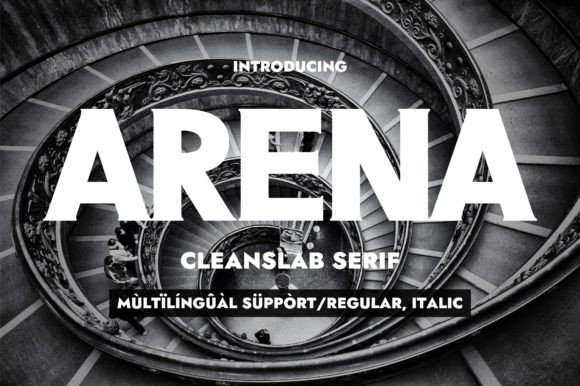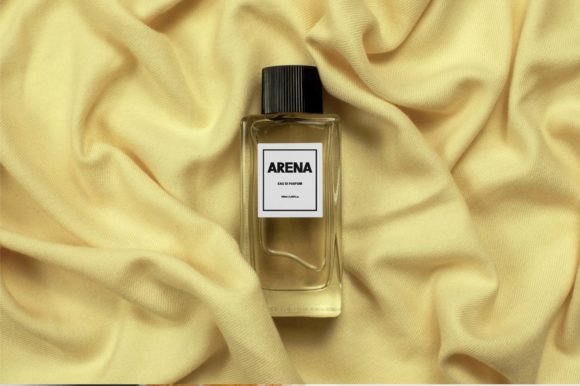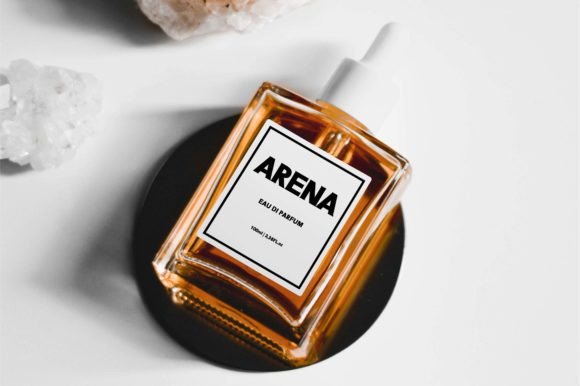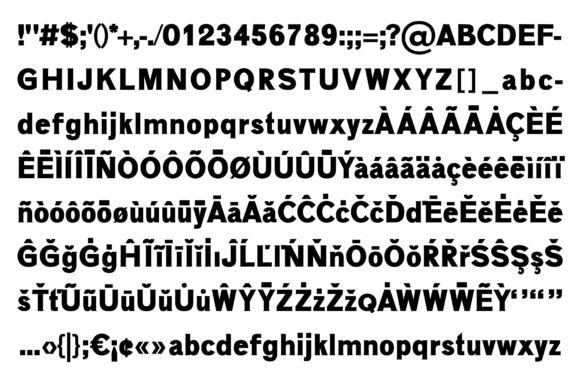
Arena
Arena: A Bold and Elegant Slab Serif Font
Arena is a bold and elegant slab serif font. Moreover, its incredible versatility makes it suitable for a wide range of creative ideas. This typeface successfully balances strength with sophistication, making it a valuable tool for various design projects.
Key Features of Arena
• Bold Design: Offers strong, impactful letterforms.
• Elegant Style: Maintains sophistication despite its bold nature.
• Versatile Use: Adapts well to many creative applications.
• Balanced Look: Combines power with refinement.
Best Uses for Arena
Thanks to its versatile nature, Arena works especially well for:
When using Arena in your designs, keep these tips in mind:
• Try it for headlines or short text to show off its bold yet elegant style.
• Use different sizes to create visual interest and hierarchy.
• Pair with simpler fonts for body text to create balance.
• Let its versatility inspire new creative ideas.
To sum up, Arena is an excellent choice for designers seeking a bold yet elegant slab serif font. Its versatility makes it perfect for various creative projects. Whether you’re working on branding materials, creating headlines, or developing marketing content, Arena offers the perfect mix of strength and sophistication.
Furthermore, Arena’s unique design allows it to shine in contexts where impact meets elegance. For instance, from website headers to advertising materials, this font can lift your projects with its distinctive style. Also, its bold yet refined appearance works particularly well in designs that aim to make a strong impression while maintaining sophistication.
In conclusion, Arena truly captures the essence of modern slab serif typography by balancing boldness with elegance. Its versatility across different applications shows how well it can serve various creative needs. Therefore, for those wanting to add a touch of bold sophistication to their work, Arena can enhance any design with its unique style. Ultimately, it’s perfect for designers aiming to make a strong yet elegant impact across creative projects.